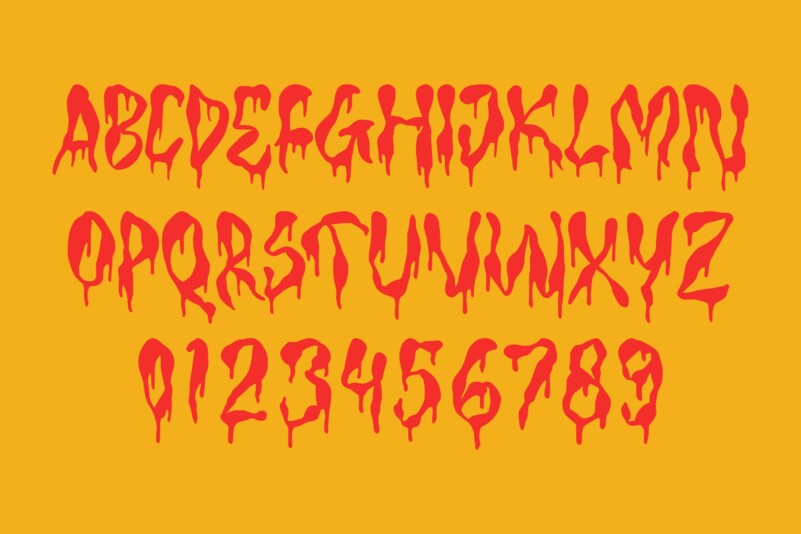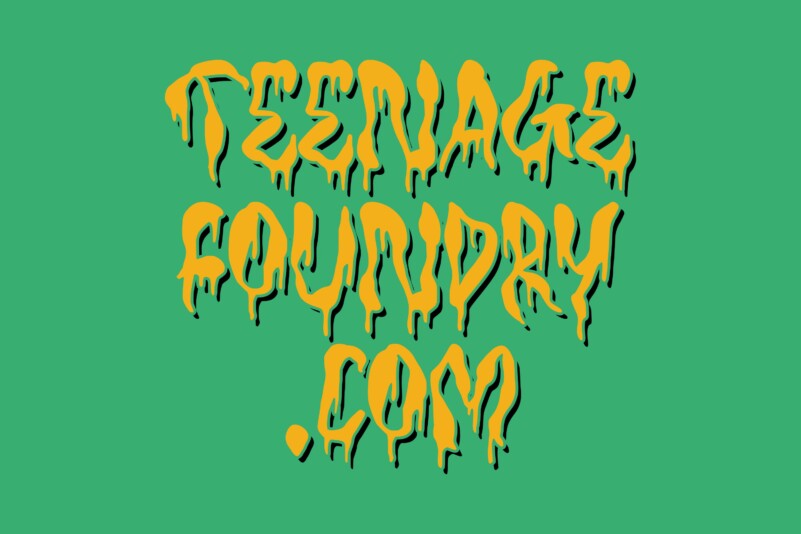
TF Bleedwax Display Font
TF Bleedwax Display Font – an eerie and spine-chilling typeface perfectly suited for Halloween-themed designs. This font exudes a horror style, created specifically to send shivers down your spine. Each letter is meticulously crafted to resemble dripping blood, giving your designs a blood-curdling and macabre feel.